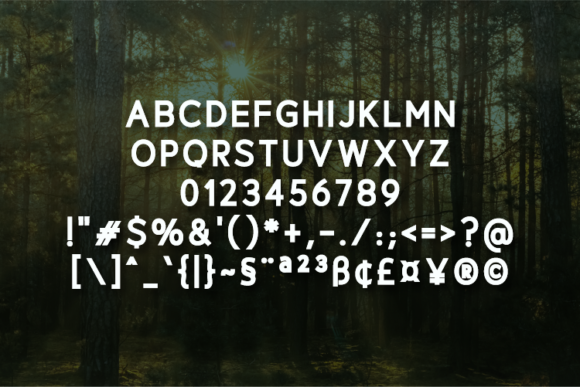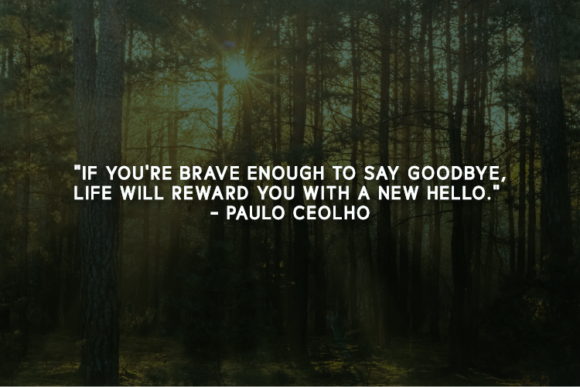
Introduction to Lusinate Font
Lusinate is a trendy looking sans serif font.
It can be used for various purposes such as logos, headings, t-shirts, letterhead, signage, labels, news, posters, badges and so much more .
Key Features of Lusinate Font
Why Choose Lusinate Font?
Lusinate Font offers exceptional quality and versatility, making it a valuable addition to your design toolkit. Whether you’re creating for personal projects or commercial use, Lusinate Font delivers professional results.